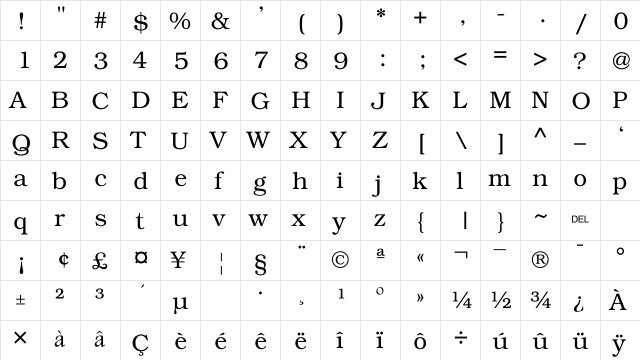
KacstPoster KacstPoster
Design Context for KacstPoster Typeface
KacstPoster is a composed and adaptable typeface that performs quietly and consistently across a wide range of design contexts.